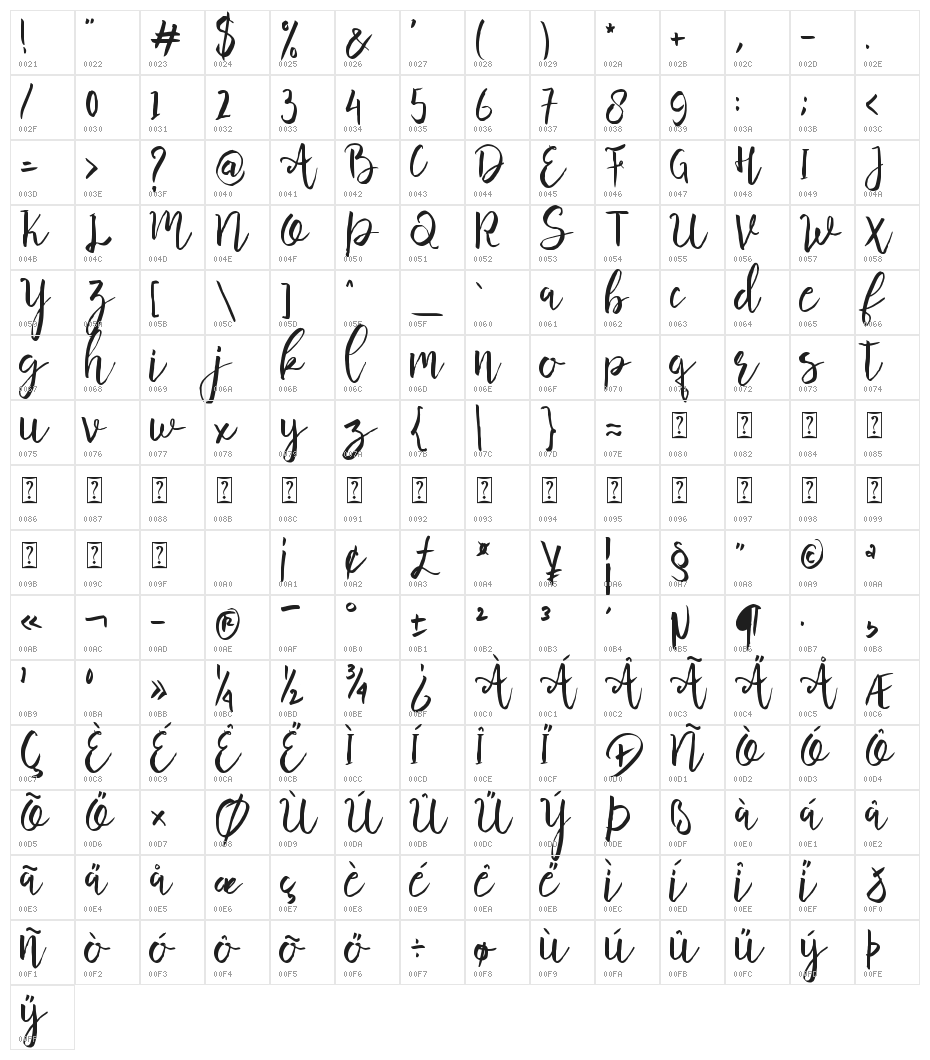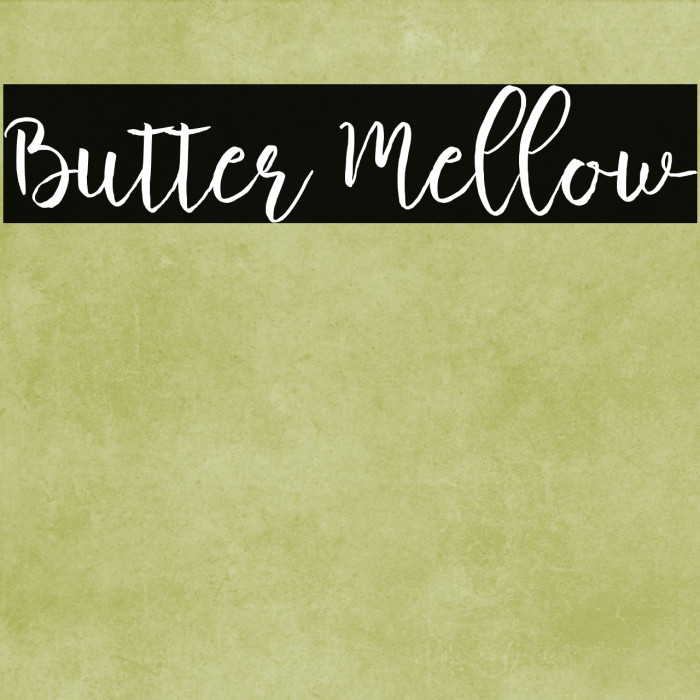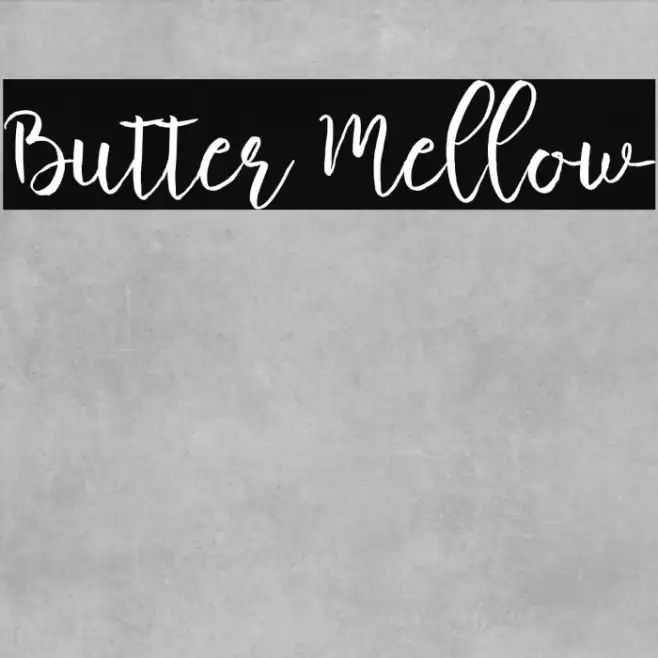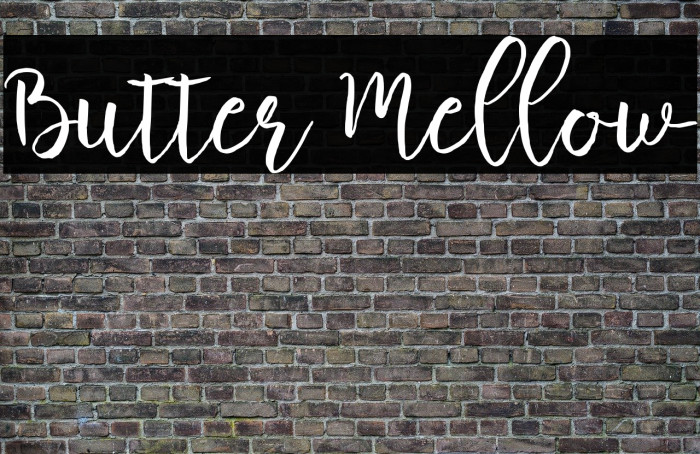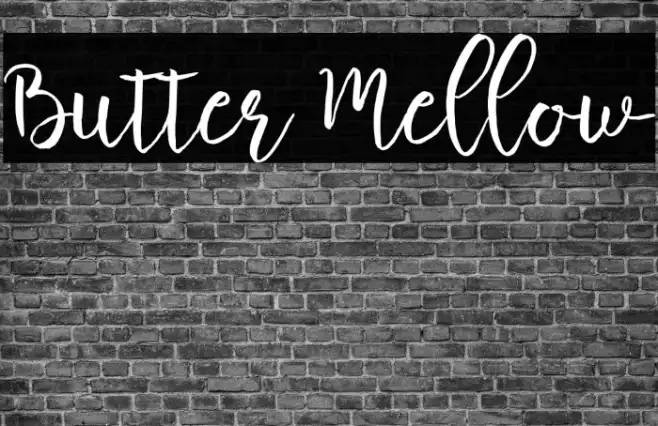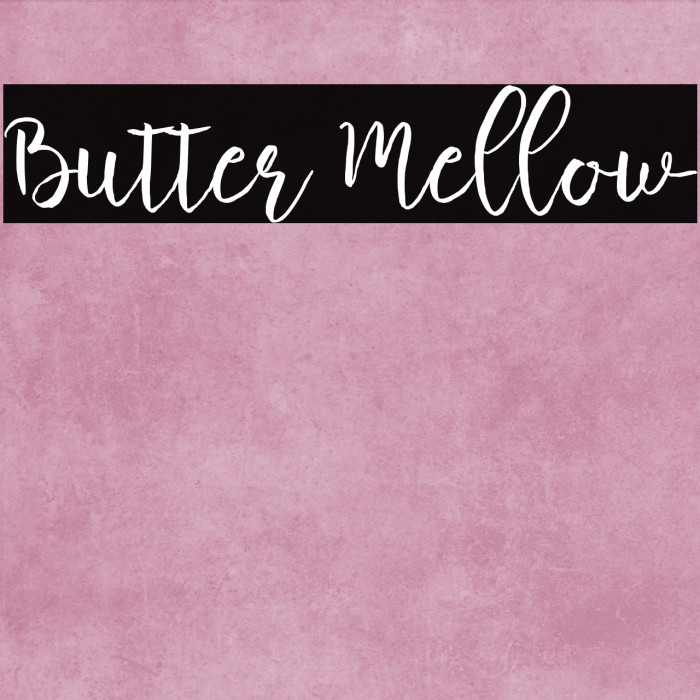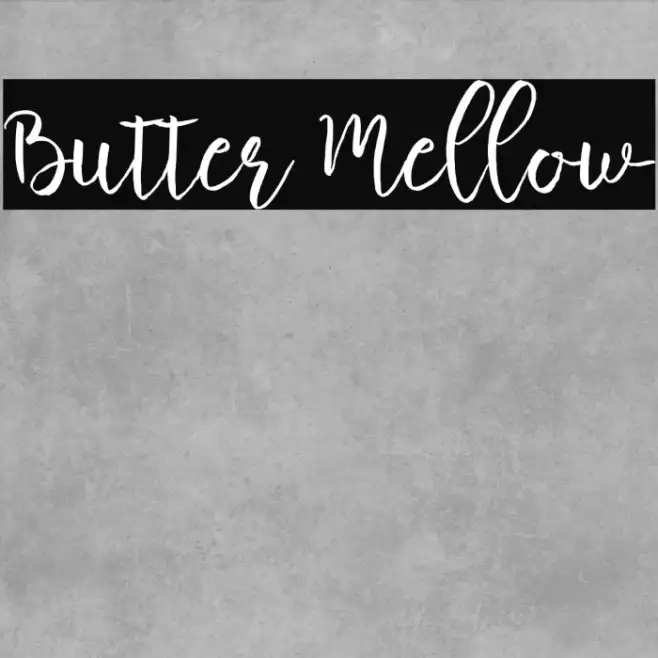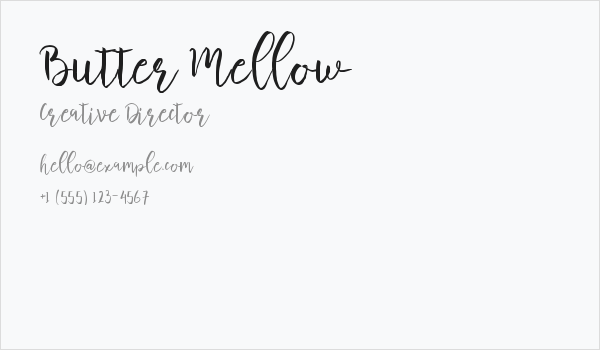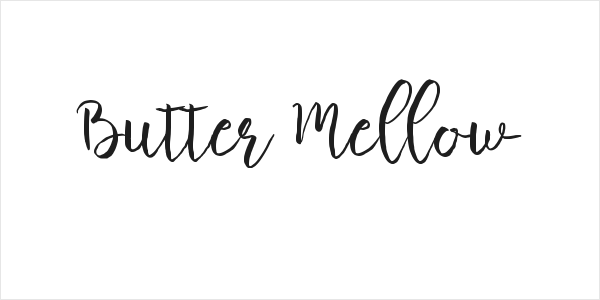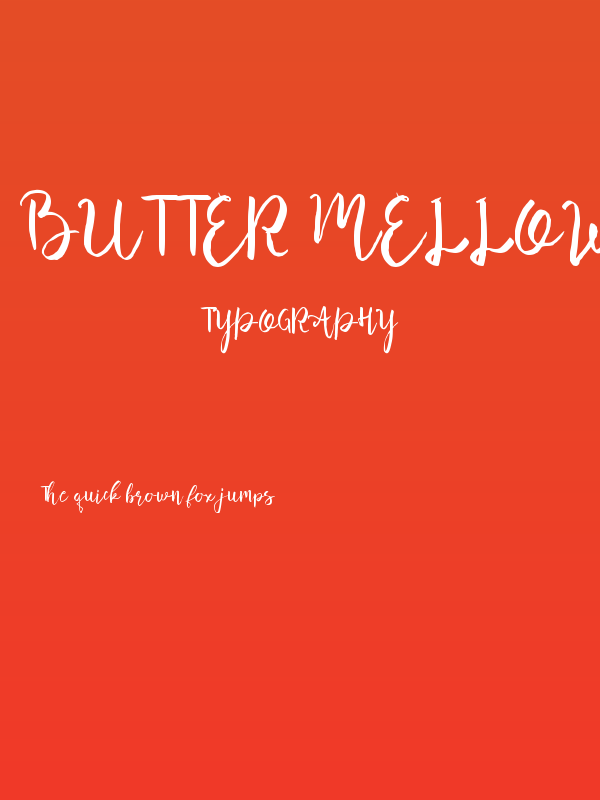
Butter Mellow Font
Butter Mellow Description
This font features a lively and expressive handwritten style, characterized by fluid and dynamic strokes that convey a sense of movement and energy. The uppercase and lowercase letters are crafted with a playful flair, incorporating loops and curves that add a whimsical touch. The numbers and special characters maintain the same energetic style, ensuring consistency across all elements. The overall appearance is bold and confident, making it suitable for projects that require a personal and informal touch. The font's design is both artistic and approachable, making it versatile for various creative applications.
| Proposed Projects | Ideal for greeting cards, invitations, branding, social media graphics, and creative projects that require a personal touch. |